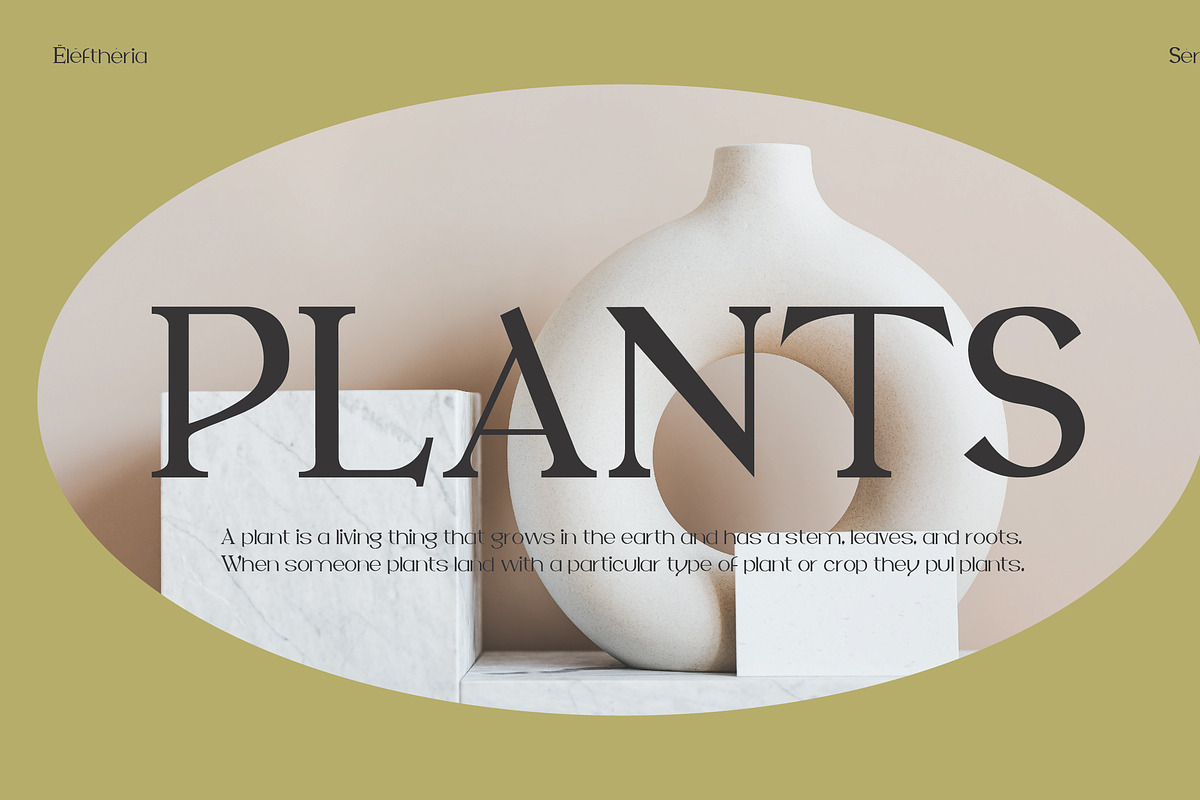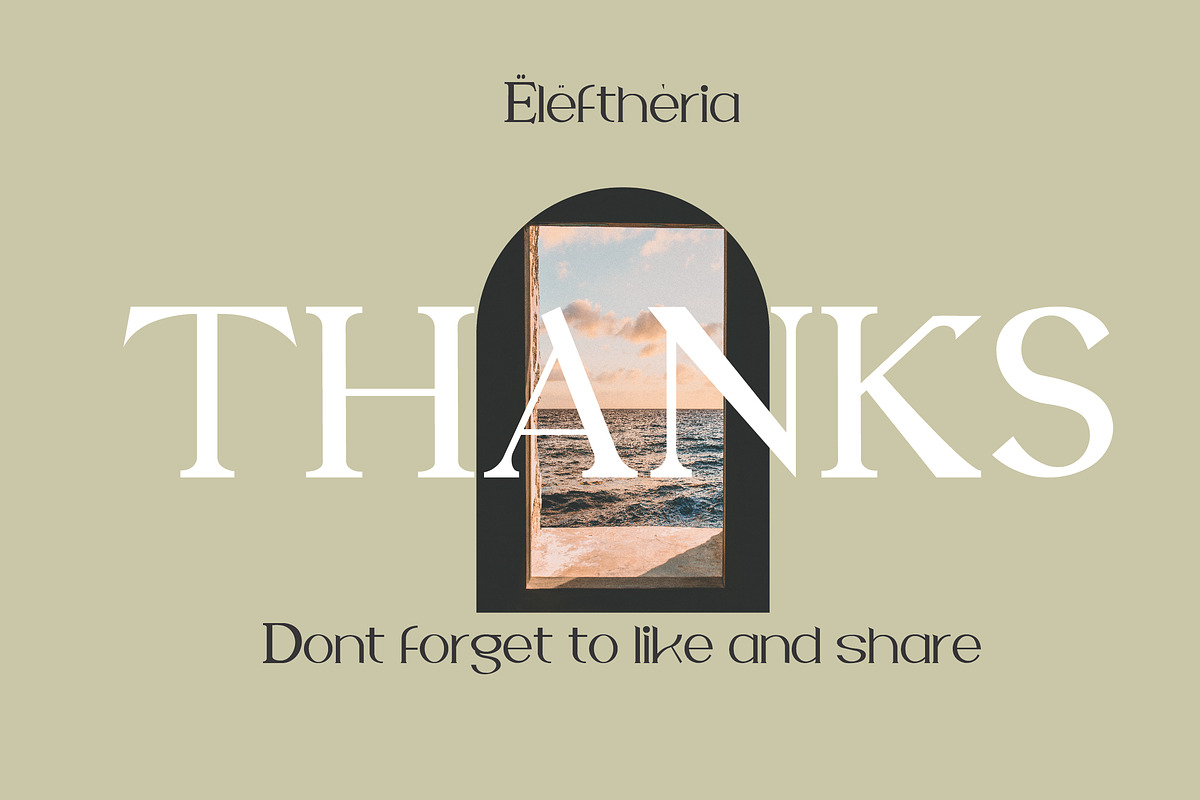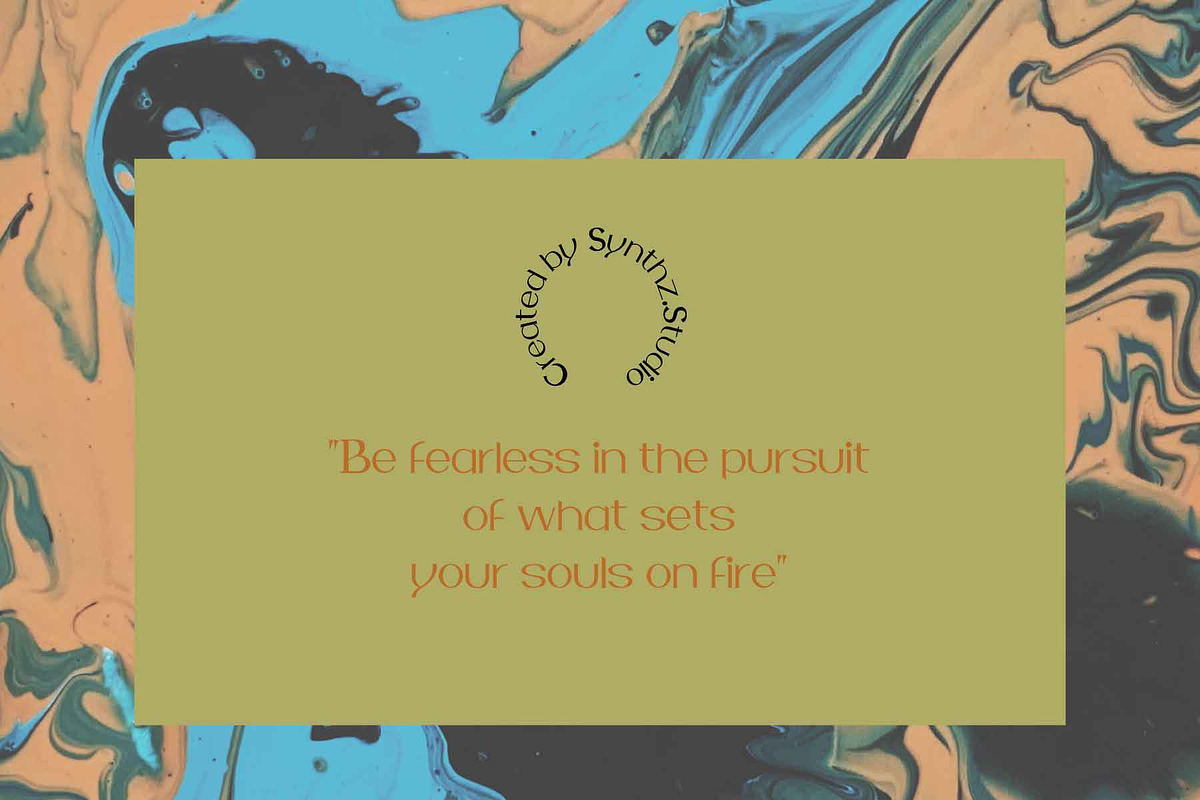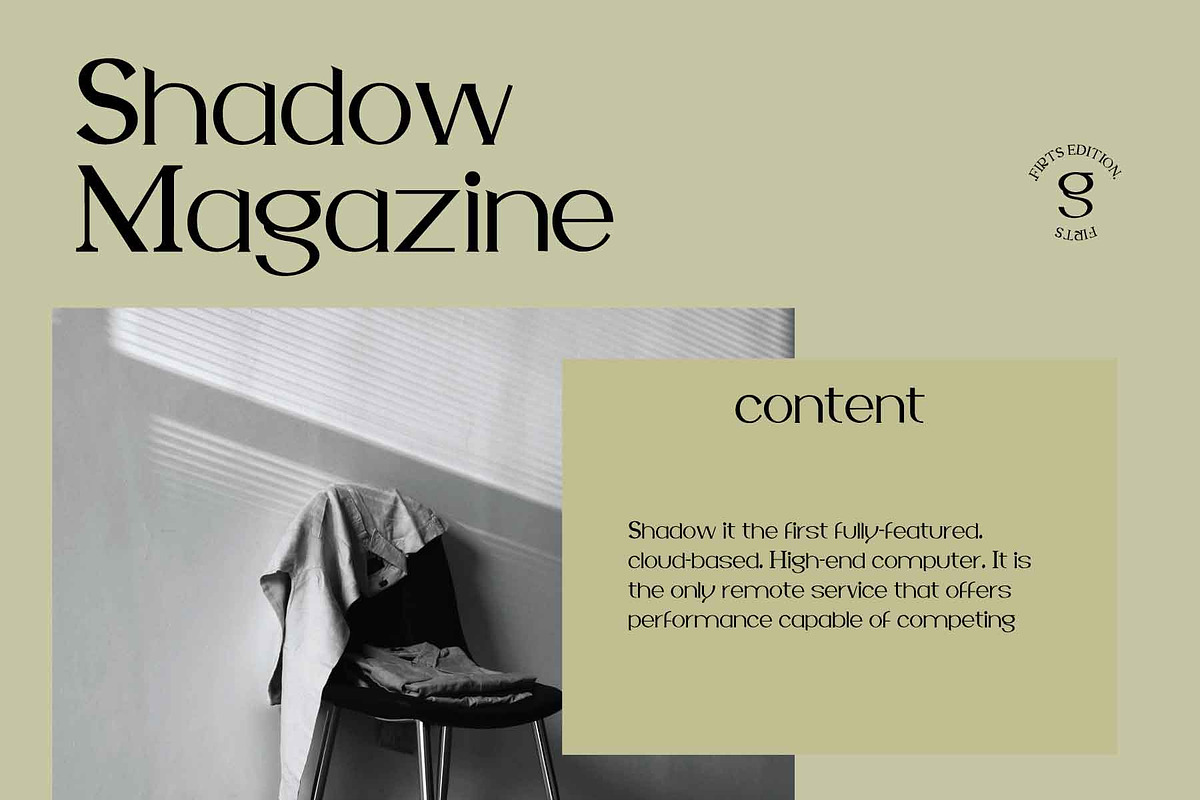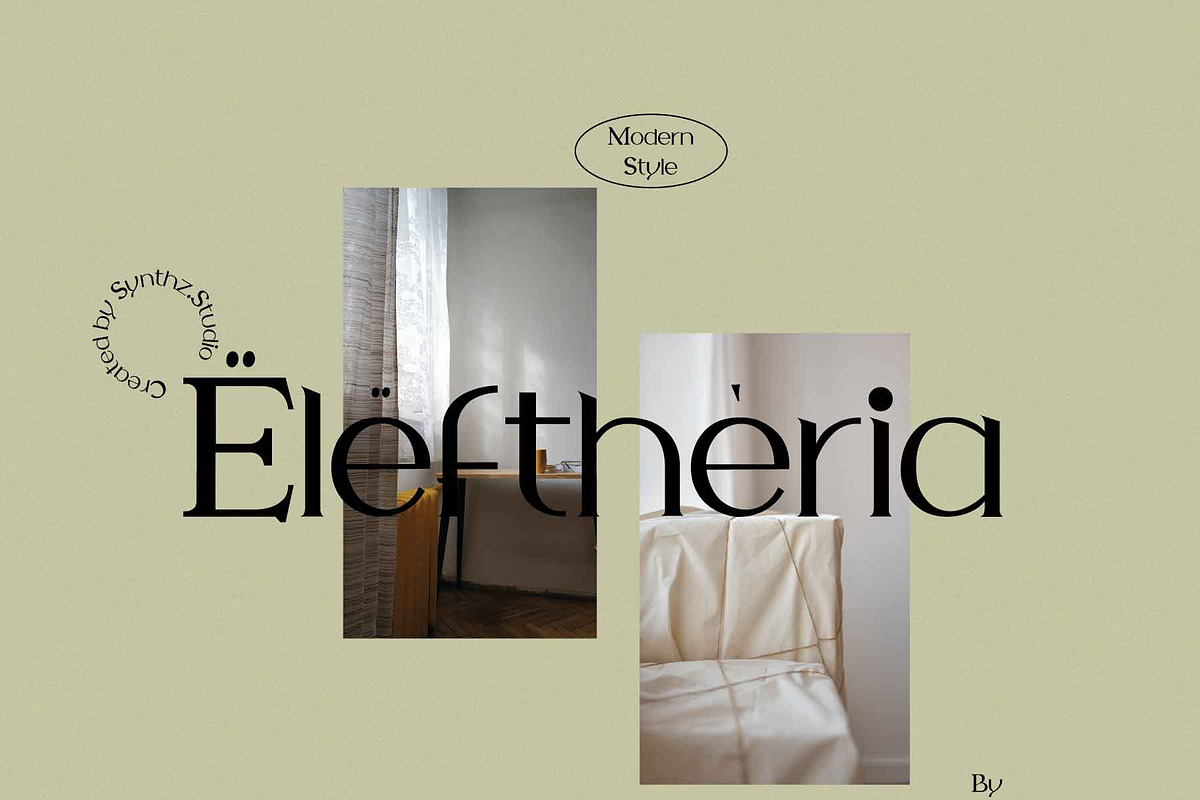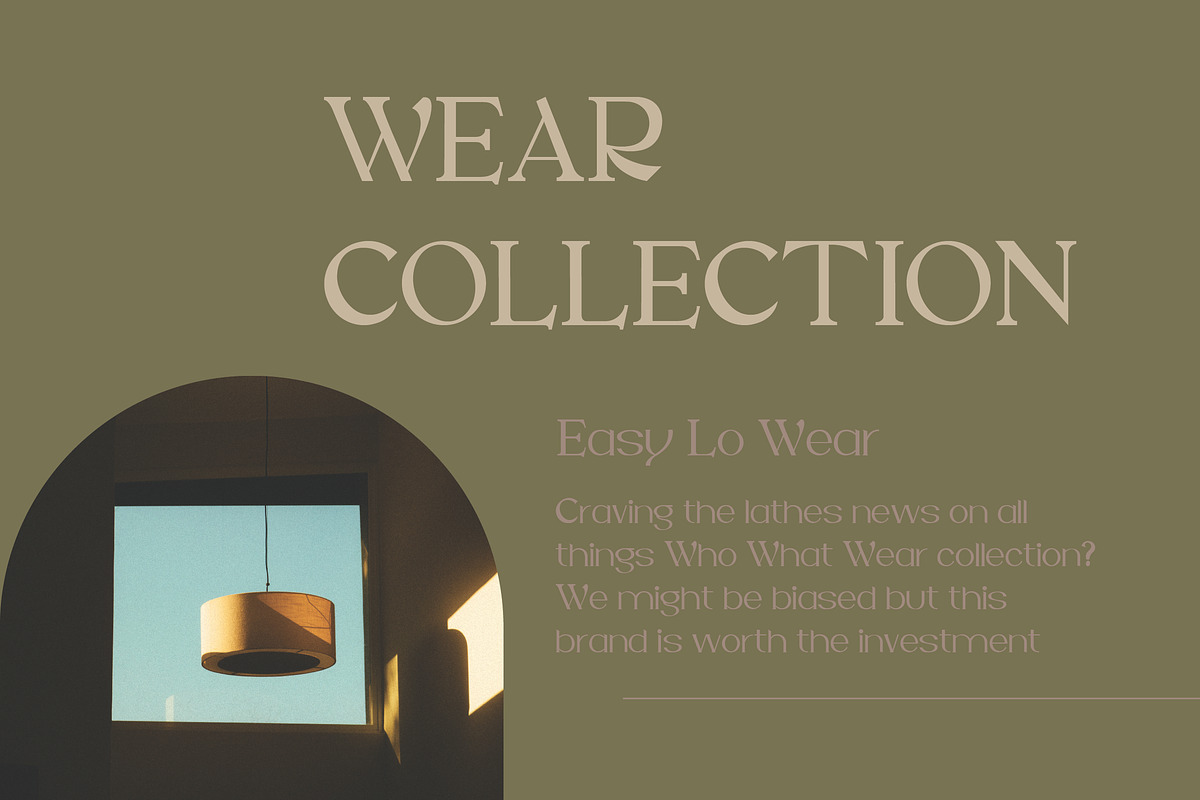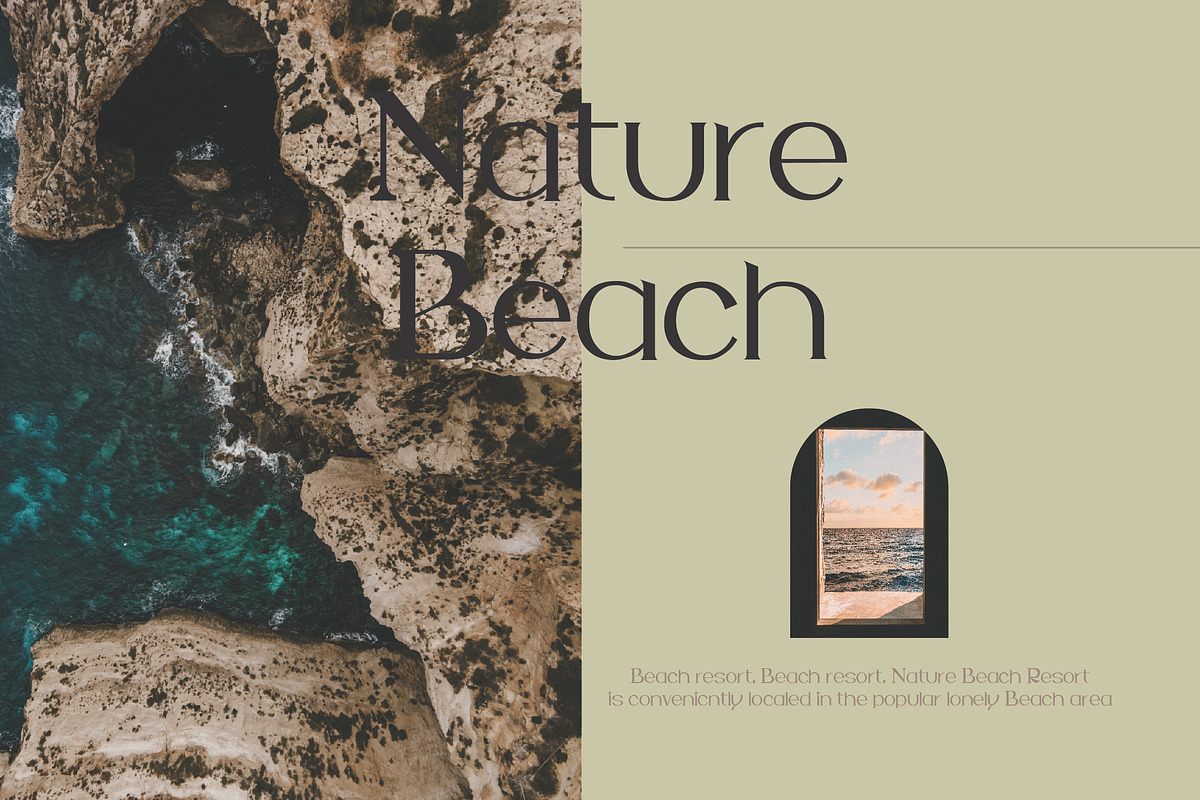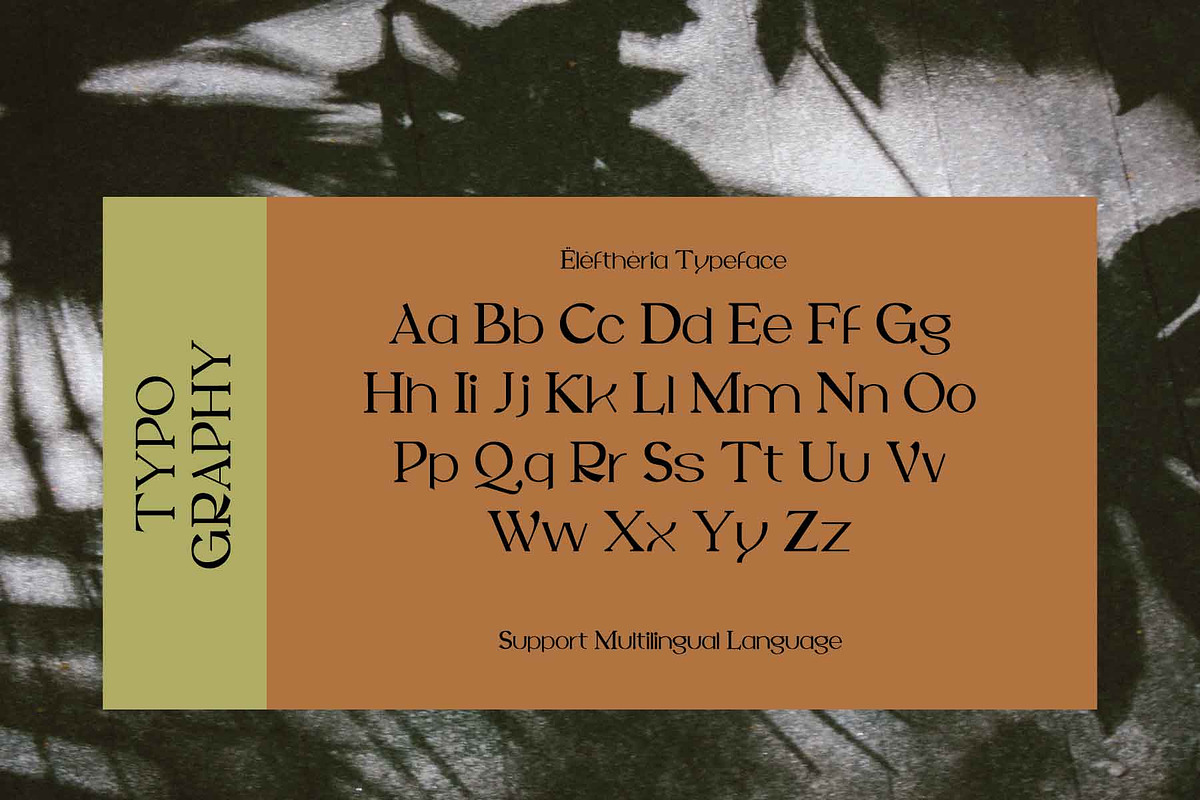
Eleftheria
Eleftheria is an elegant and chic serif font! It’s perfect for making titles for magazines or product promotions, and it can be utilized in feature film productions from titles to assets.